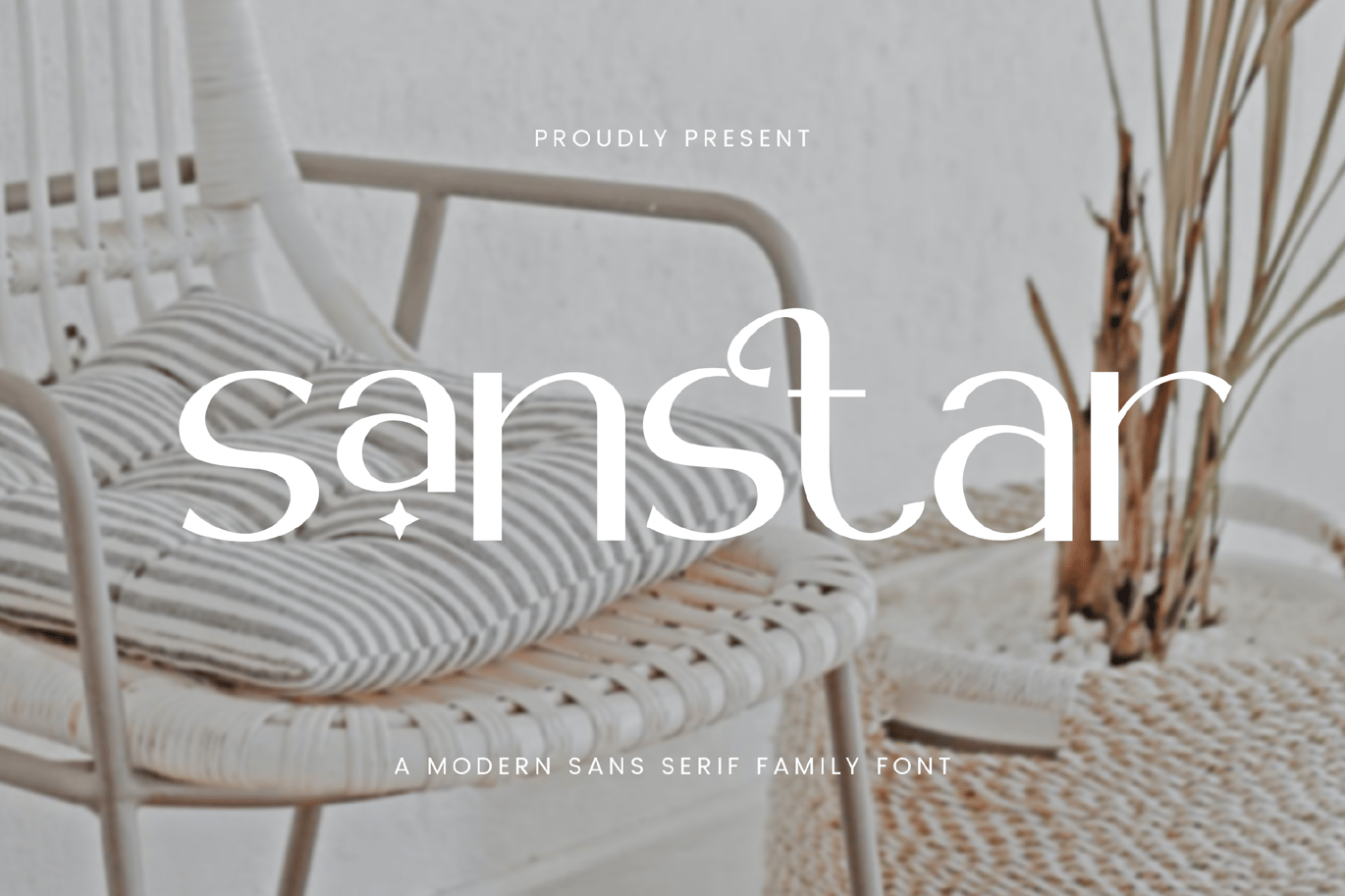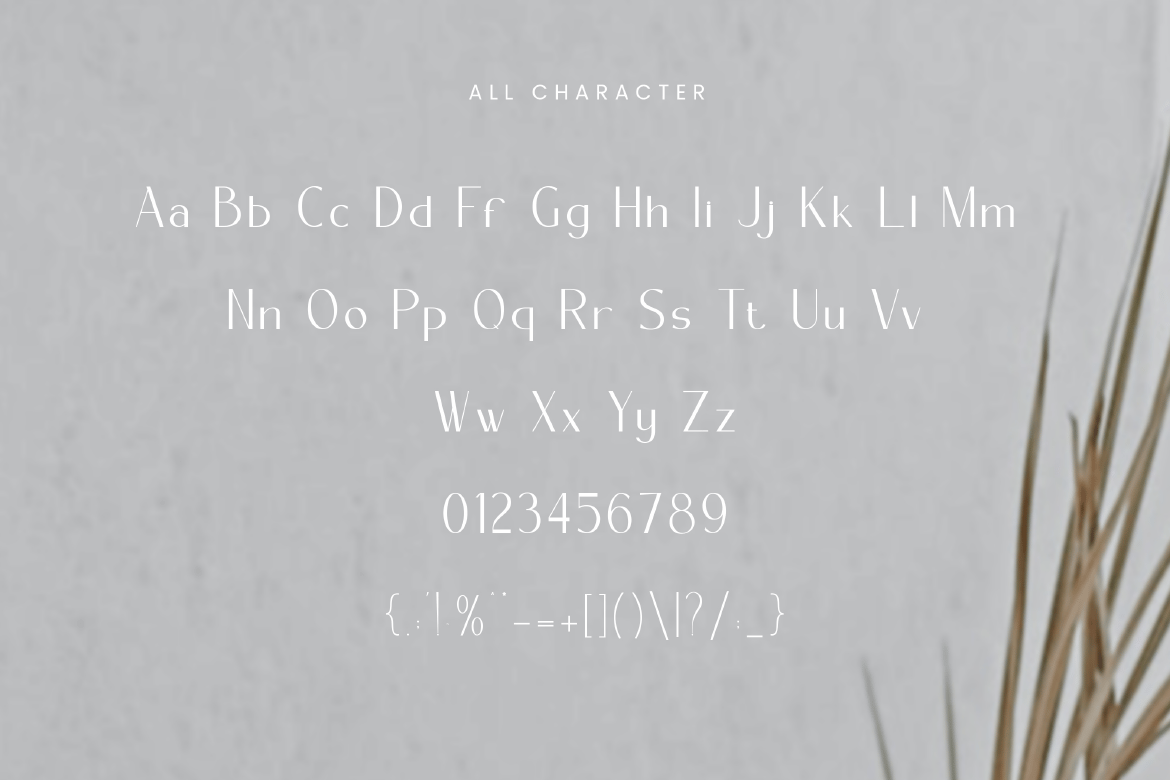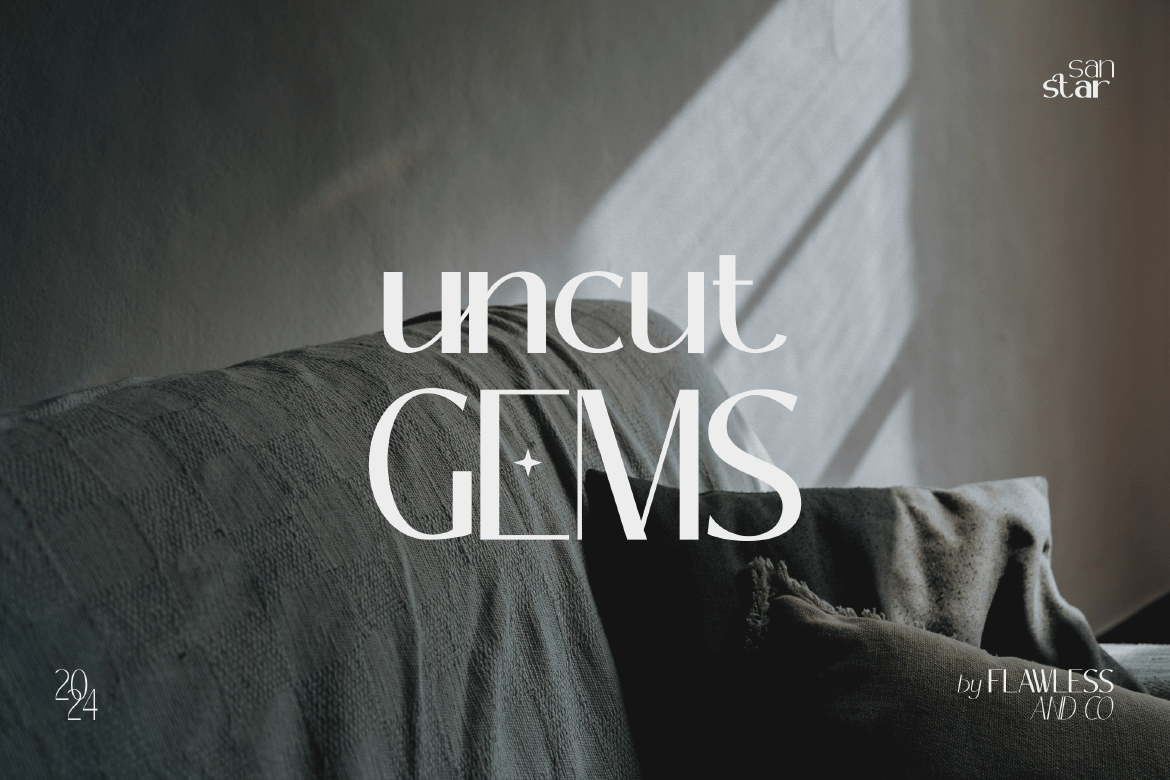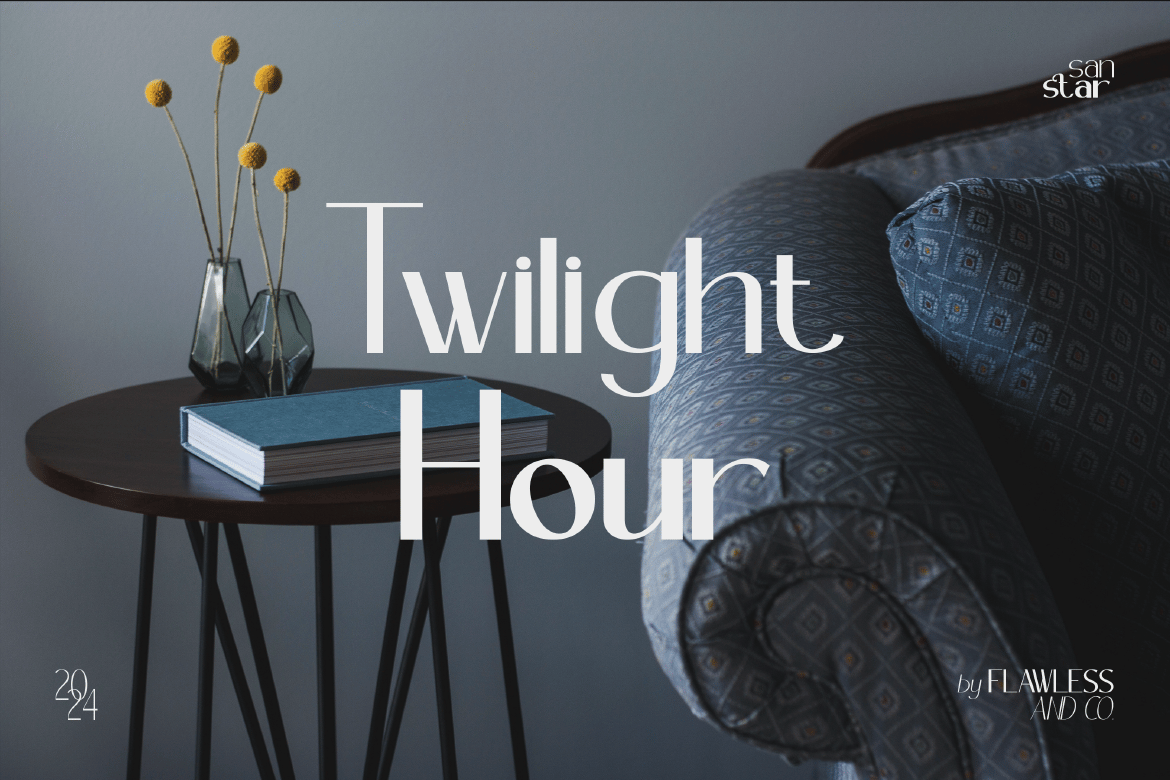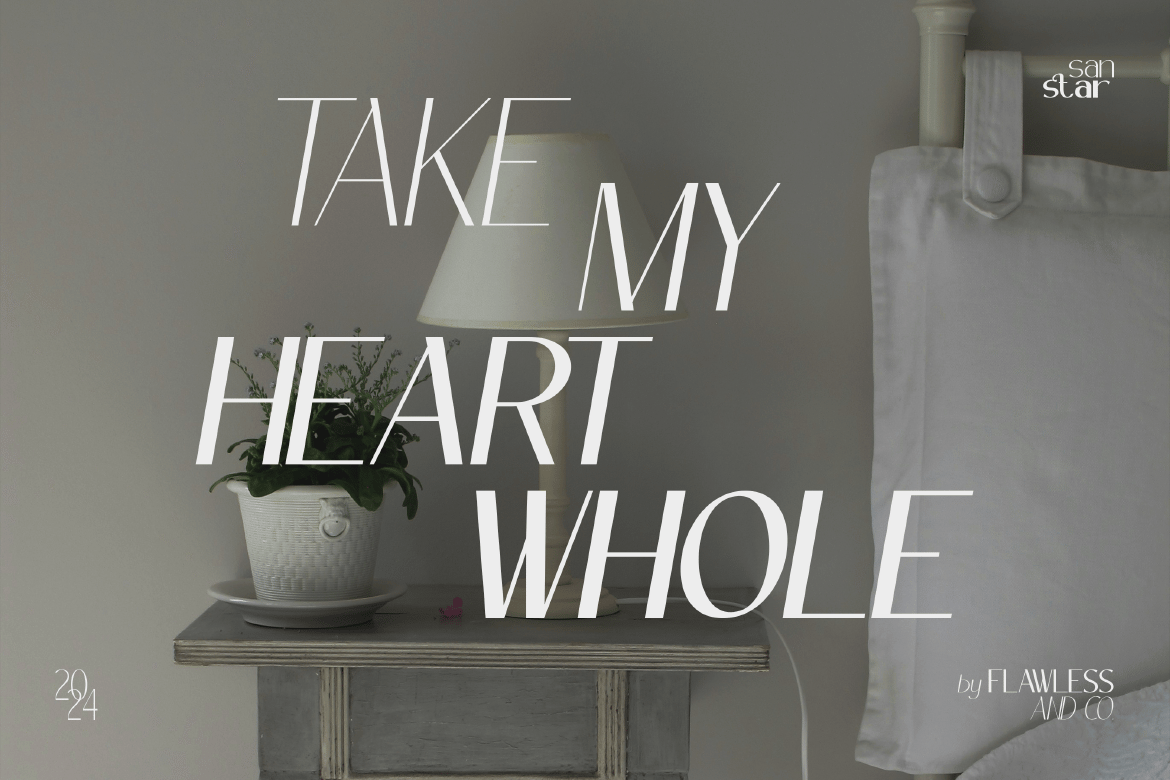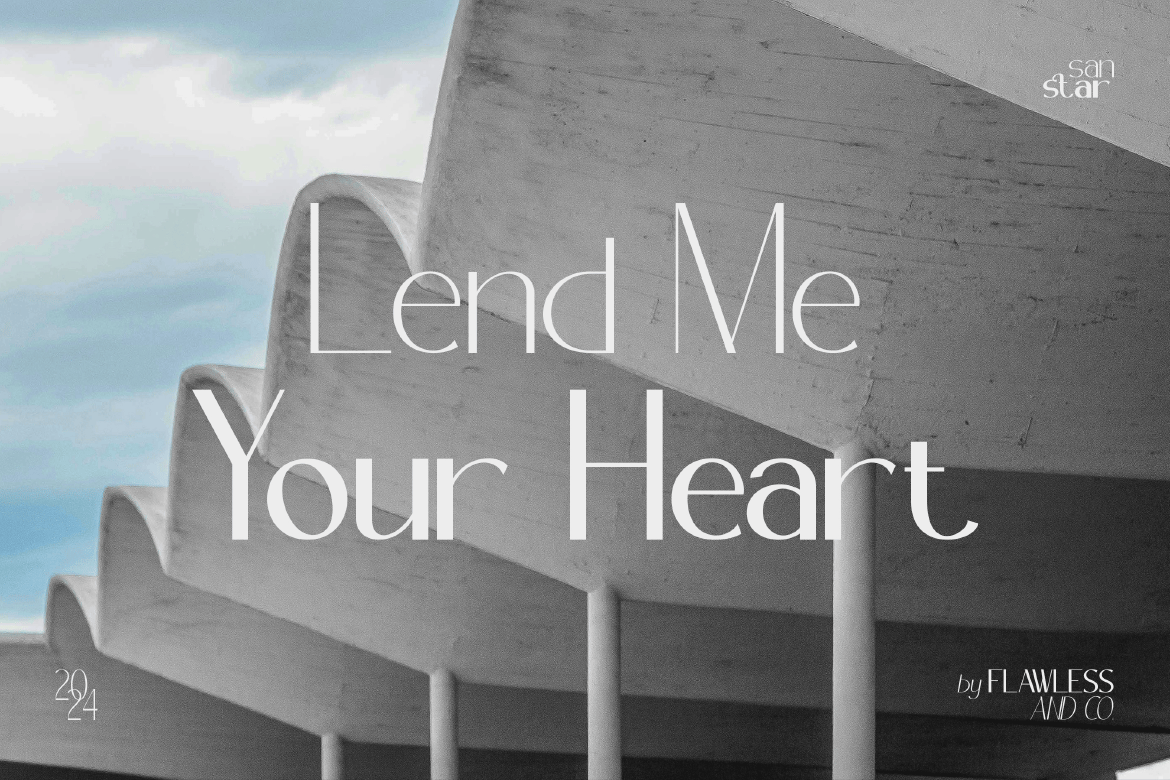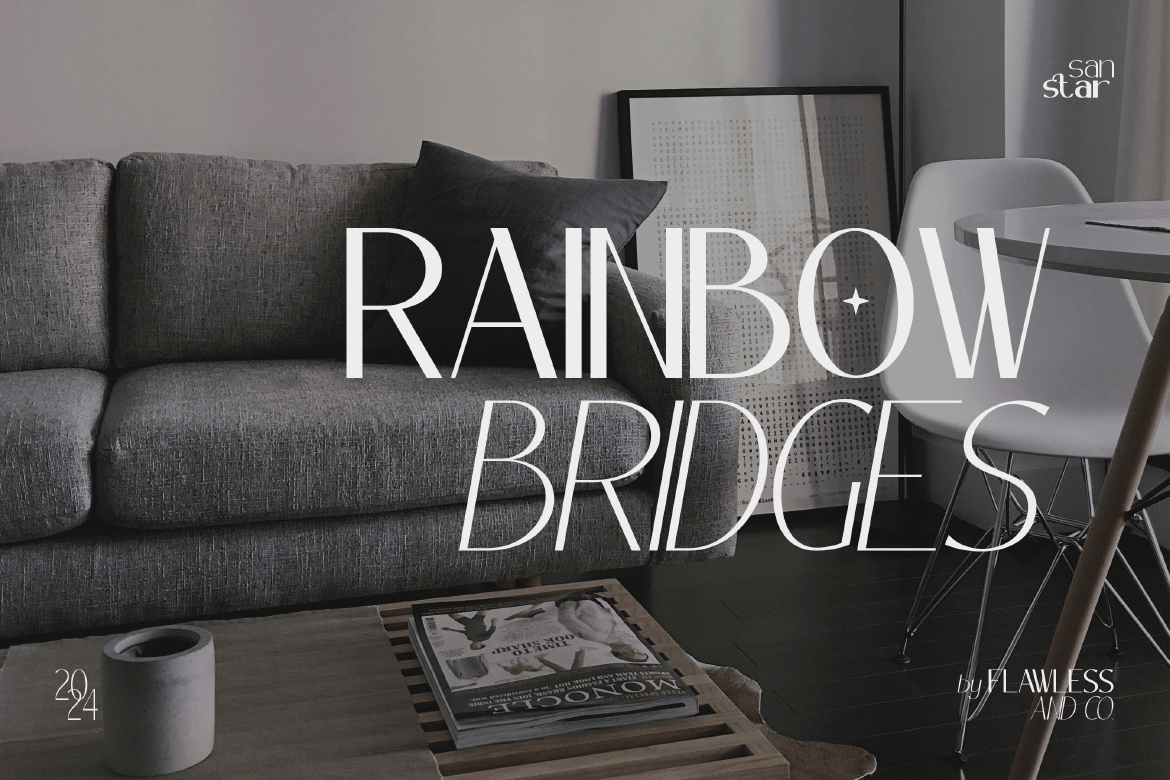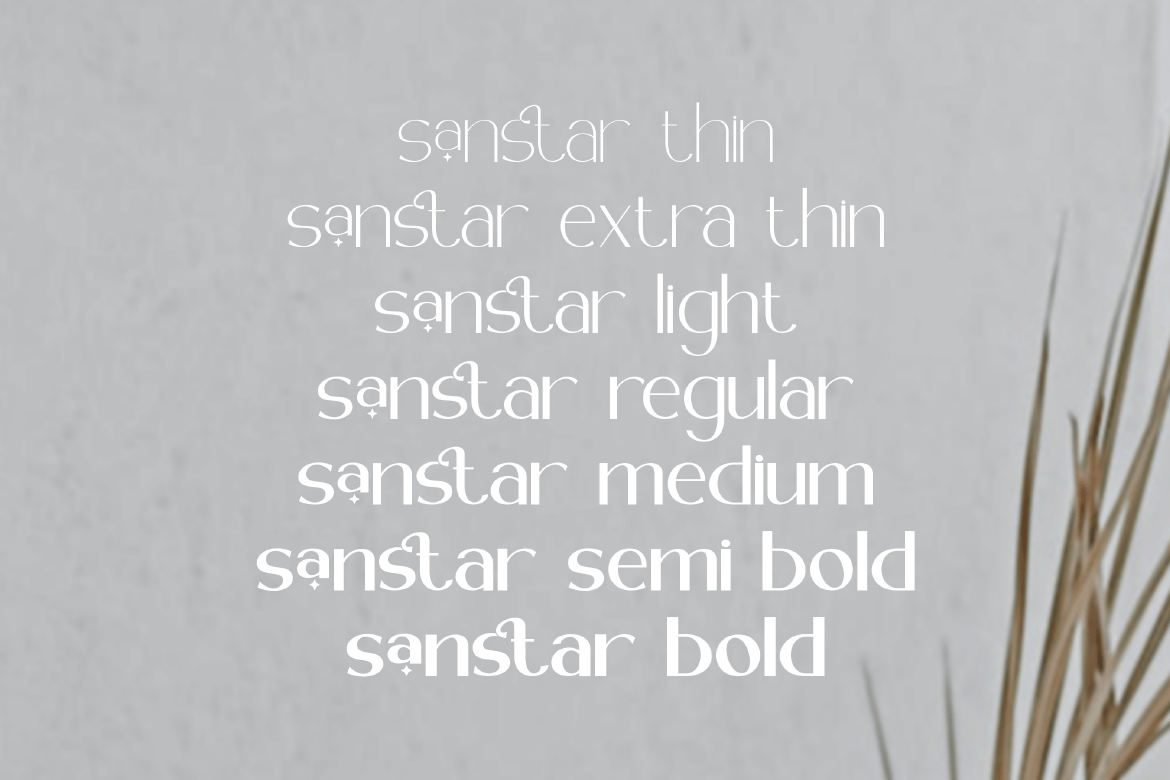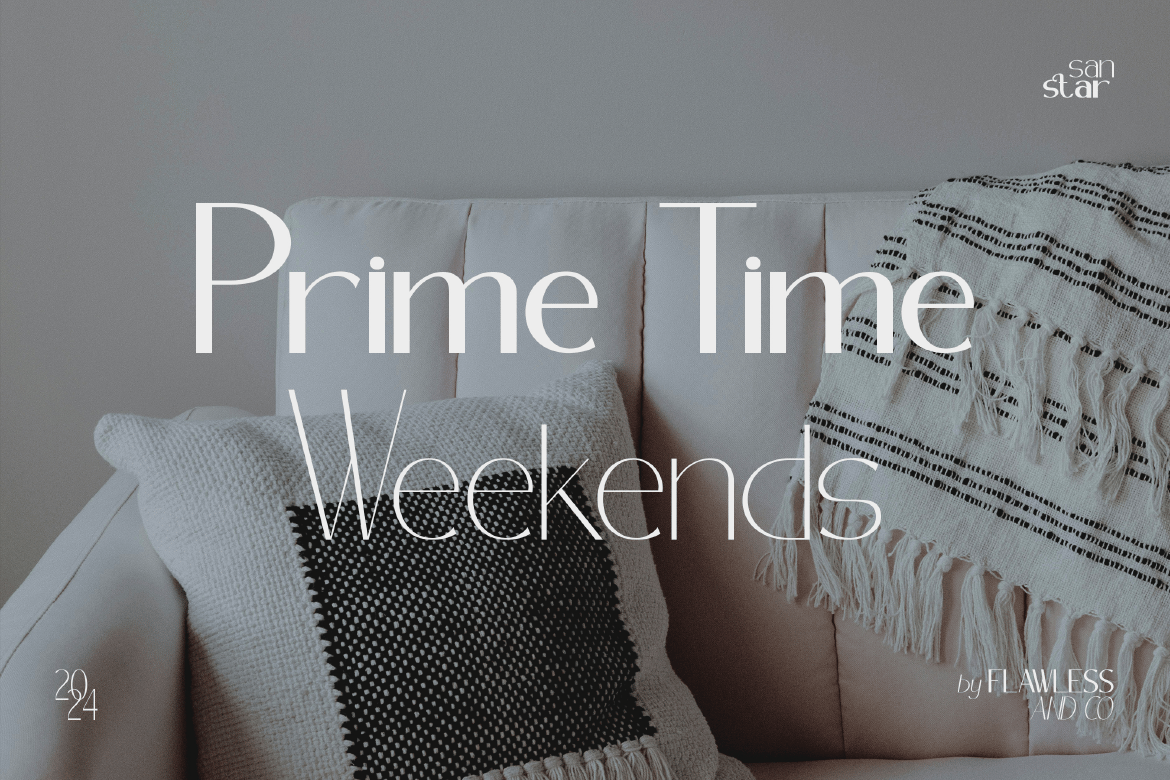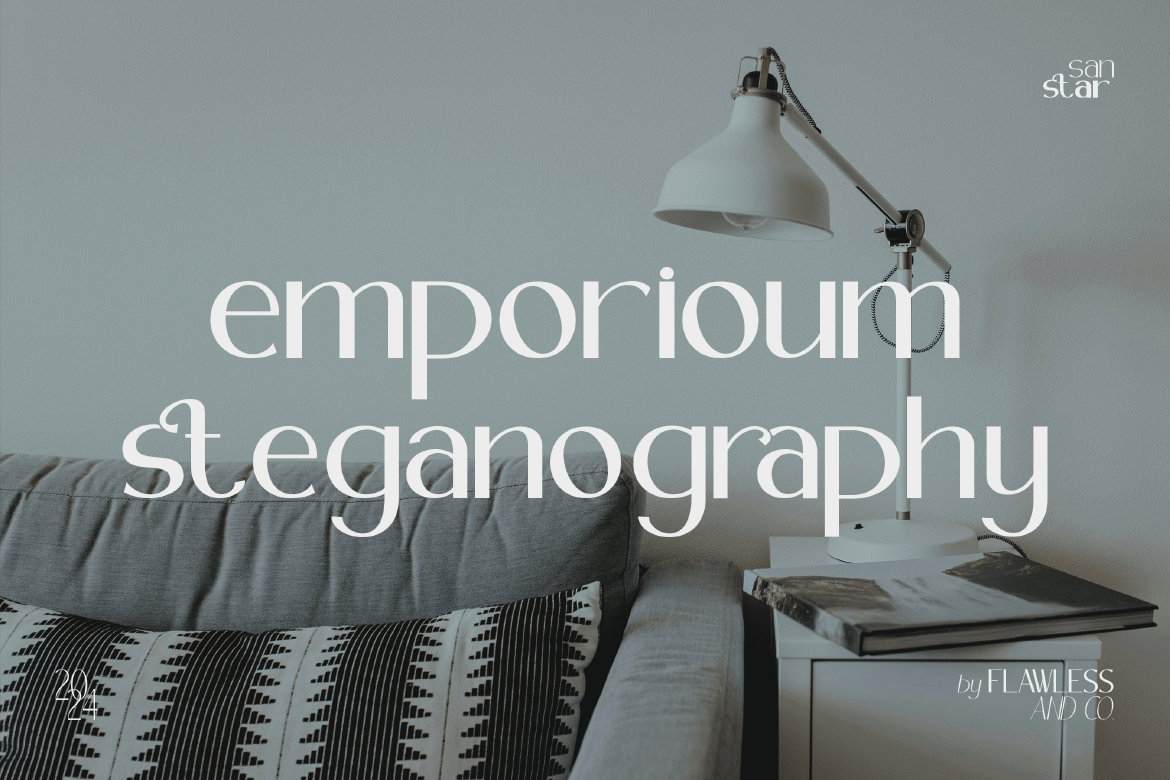
Sanstar – Modern Sans Serif Font Family
Introducing Sanstar, an elegant sans serif font family that exudes sophistication and style. With its clean lines, geometric shapes, and subtle stroke variations, Sanstar is perfect for creating a modern and refined look for your branding, web design, and editorial projects. Sanstar consists of various weights ranging from thin to bold styles, including thin, extra light, light, regular, medium, semi-bold, and bold.